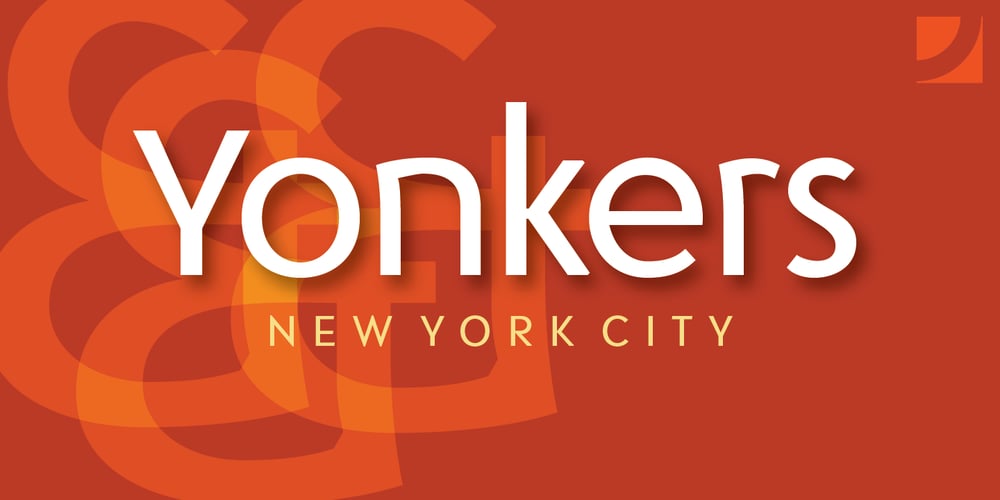
Yonkers
Yonkers font
Yonkers Font Family was designed by John Nahmias and published by Jonahfonts. Yonkers contains 6 styles and family package options. Yonkers a classic gothic face a very legible face. Very suitable for various applications.